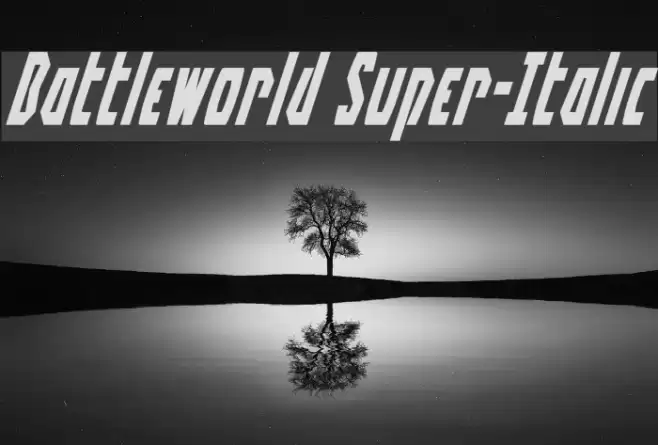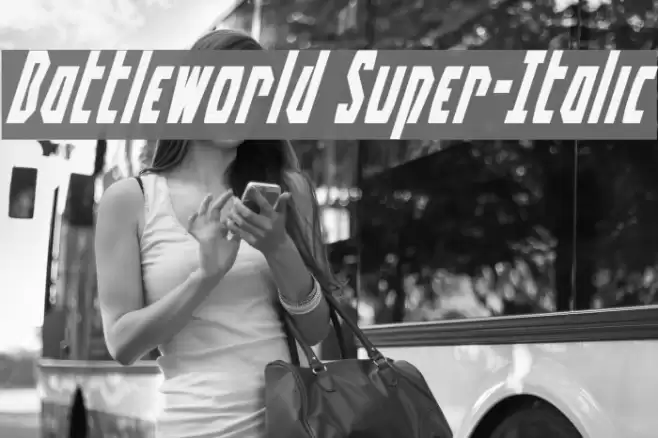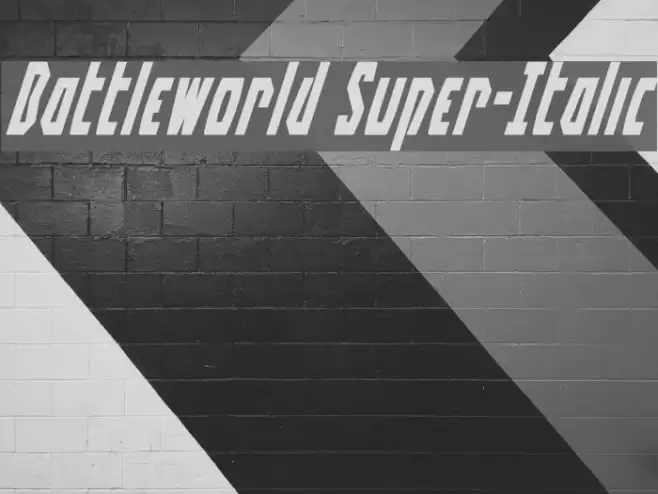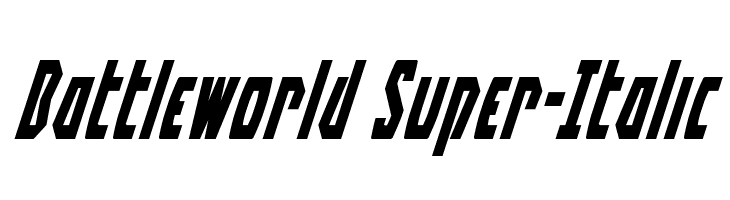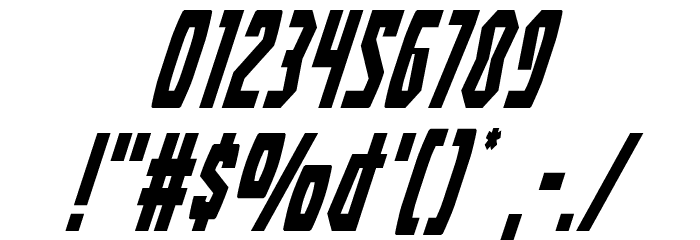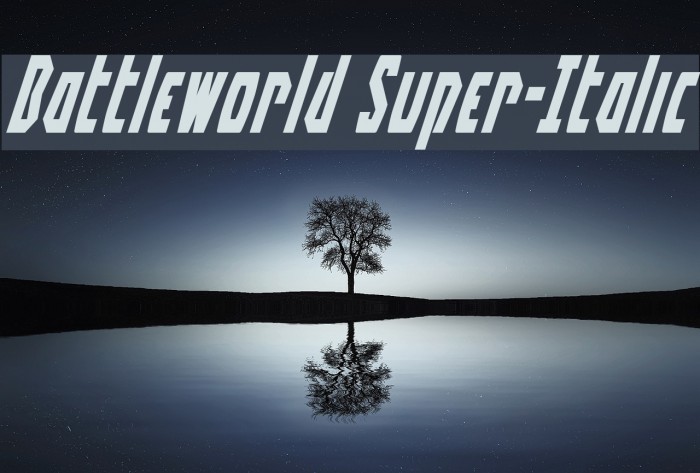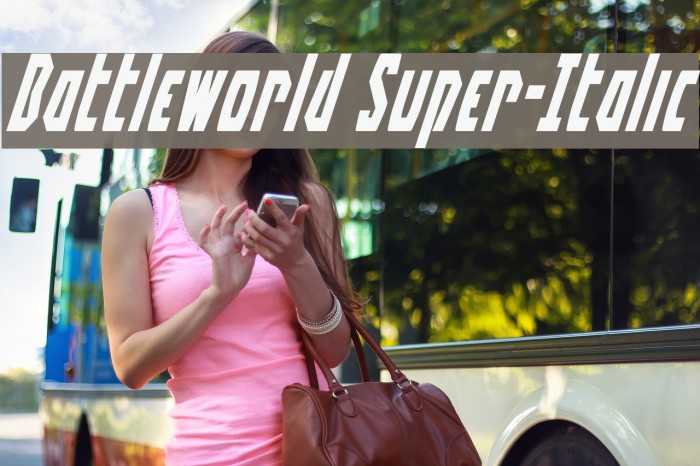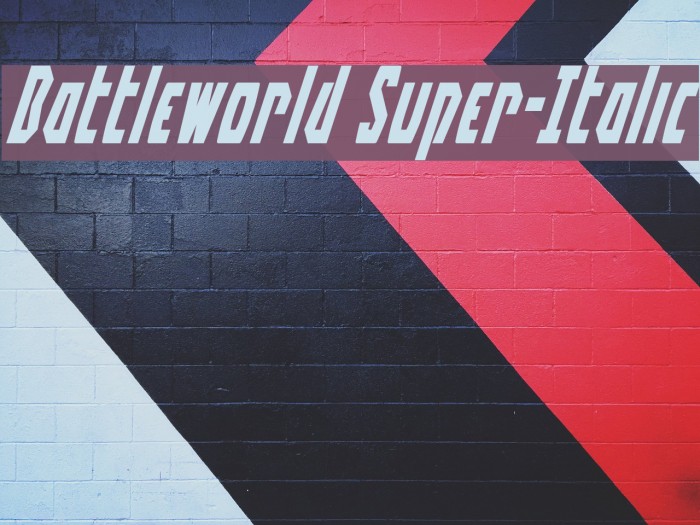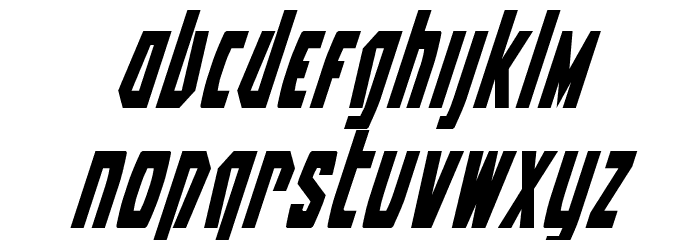
Battleworld Super-Italic Font
Battleworld Super-Italic Description
This font features a bold and dynamic design with a strong italic slant, giving it a sense of motion and energy. The characters are sharply angled, with a futuristic and aggressive appearance. The uppercase and lowercase letters maintain a consistent style, with clean lines and pointed edges. The numerals and special characters follow the same design principles, ensuring uniformity across all glyphs. This font is ideal for projects that require a modern and impactful look, such as sports branding or action-themed designs.
A bold, italic font with a dynamic, futuristic style from Sci-fi fonts.
- Proposed Projects: Ideal for sports branding, action-themed designs, and dynamic posters.